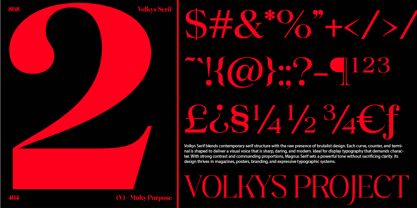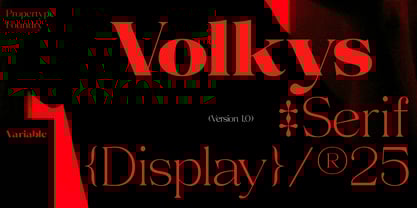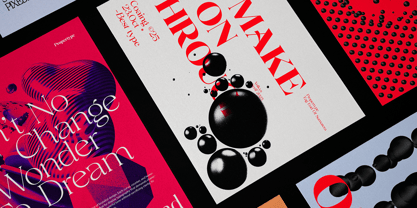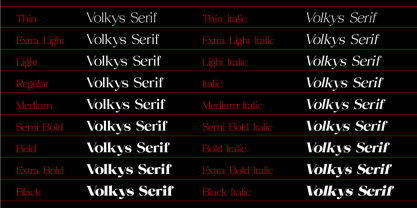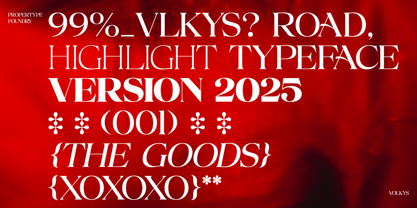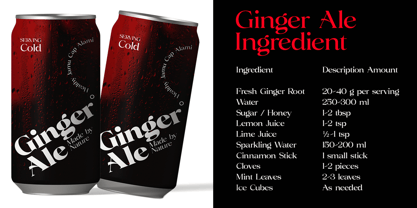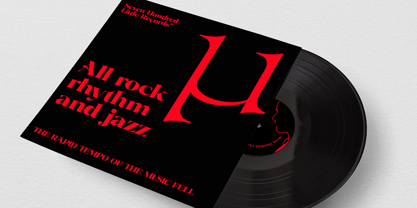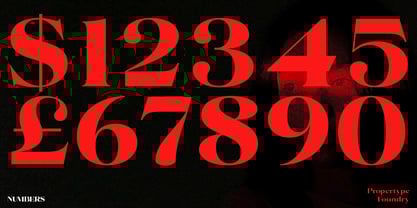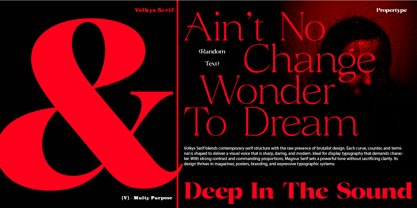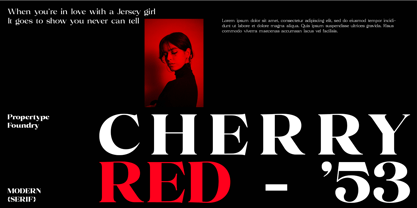
Volkys Serif
by Propertype
The Volkys Serif Font Family was designed by Nadia Auliana and published by Propertype. Volkys Serif contains 19 styles and family package options.
Volkys Serif Font is a high contrast typeface inspired by transitional and contemporary typefaces. This typeface expands its usage by providing thicknesses ranging from thin to black. Natural curves, bulging stems, and slants, become more prominent as the letter thickness increases. While thinner thicknesses have lower contrast and optical correction to create a warm and soft look. Featuring beautiful italics, excellent weights, and extensive language support. Volkys Serif Font excels in display settings such as headlines, titles, branding projects, Logo designs, packaging, magazine headlines, advertisements, short or long texts. Fonts Included: Uppercase Characters Lowercase Characters Numbers and Ligatures Multilinguage Support Volkys Serif Text also comes with 18 Variable versions to make it easy for designers to explore and refine beautiful designs, revealing many visual nuances and hidden secrets. Greetings Propertype
Designers: Nadia Auliana
Publisher: Propertype
Foundry: Propertype
Design Owner: Propertype